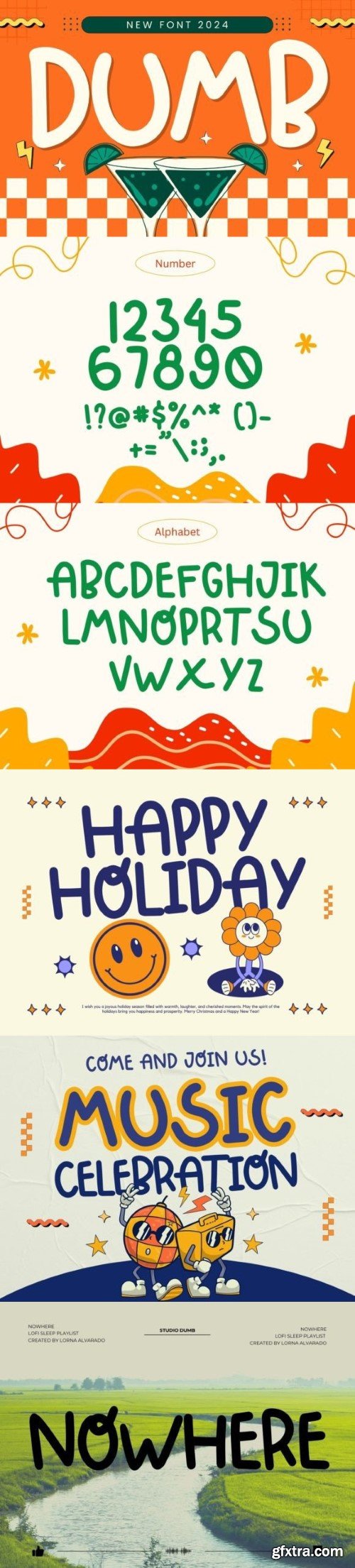
Dumb is a cute and friendly handwritten font that brings a playful touch to your designs. With rounded letterforms and a welcoming demeanor, it exudes approachability and warmth. Ideal for projects requiring a friendly and modern aesthetic, Dumb adds a delightful and charming quality to your creative expressions.